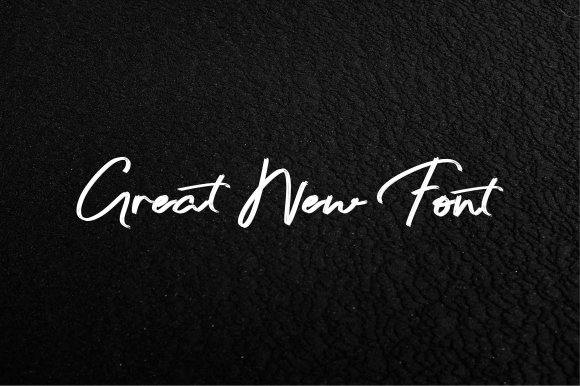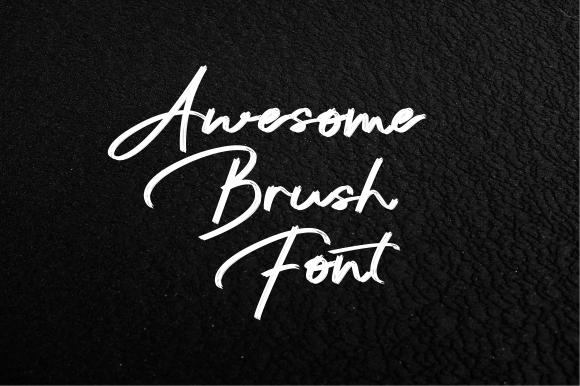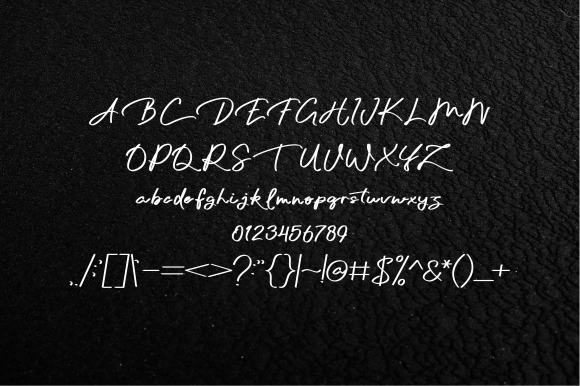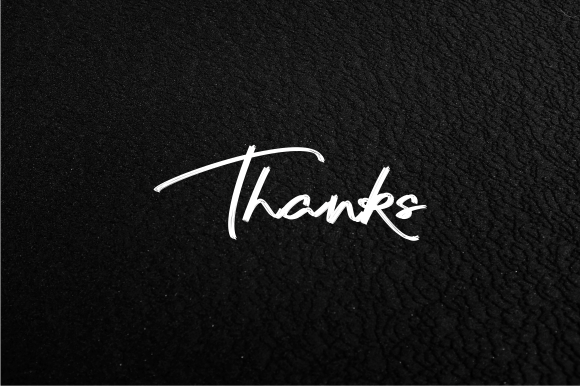
Deltabrush Font: Elevate Your Designs with a Handwritten Touch
In the world of digital design, fonts play a crucial role in conveying the tone and personality of a project. For crafters, designers, and artists looking to add a personal, handmade touch to their work, the Deltabrush font is an exceptional choice. This beautifully flowing handwritten font is designed to impress with its authentic flair, making it perfect for a wide range of creative projects.
The Charm of Deltabrush
Deltabrush is more than just a font; it’s a way to infuse your designs with a sense of warmth and personality. Its handwritten nature gives it a unique, organic feel that is hard to replicate with more uniform, machine-generated fonts. Whether you’re working on a branding project, crafting a one-of-a-kind invitation, or creating art that speaks to the soul, Deltabrush offers the perfect blend of elegance and informality.
Key Features of Deltabrush Font
- Authentic Handwritten Look: Deltabrush boasts a beautifully flowing script that mimics the natural flow of handwriting, providing a genuine and heartfelt feel to any project.
- Versatility: This font is incredibly versatile, suitable for a variety of applications ranging from elegant branding and signage to personal stationery and art projects.
- Easy to Read: Despite its artistic nature, Deltabrush maintains a high level of readability, making it a practical choice for both headings and body text.
- Unique Character: Each letter in the Deltabrush font carries its own character and charm, ensuring that your designs stand out from the crowd.
Using Deltabrush in Your Projects
The applications of Deltabrush are vast and varied. Here are a few ideas to get you started:
- Branding and Logotypes: Use Deltabrush to create a memorable logo or brand identity that speaks to your audience on a personal level.
- Stationery and Invitations: Add a touch of elegance and warmth to your cards, invitations, and letters.
- Web Design: Incorporate Deltabrush into your website design to create a welcoming and unique user experience.
- Art and Illustration: Combine Deltabrush with your illustrations or use it as part of your artwork to add depth and character.
Tips for Working with Deltabrush
To make the most out of Deltabrush, consider the following tips:
- Experiment with Sizes: Play around with different font sizes to capture the perfect balance between readability and visual impact.
- Mix and Match: Don’t be afraid to combine Deltabrush with other fonts to create contrast and hierarchy in your designs.
- Color Matters: Choose colors that complement the warm, organic feel of Deltabrush. Earth tones, soft pastels, and rich jewel tones work particularly well.
Deltabrush is a beautifully flowing handwritten font that offers a unique and authentic way to add a handmade touch to your projects. Its versatility, readability, and distinctive character make it an excellent choice for designers and crafters looking to infuse their work with personality and warmth. Whether you’re creating branding materials, personal stationery, or artwork, Deltabrush is sure to impress with its elegant and organic feel. So, why settle for ordinary when you can add an extraordinary touch with Deltabrush?
Embrace the charm of Deltabrush and let your designs tell a story that’s uniquely yours.